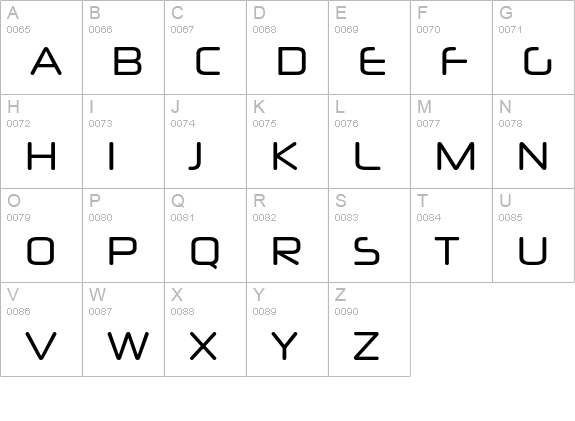
Neuropol X Cnd Font Details
Neuropol X Cnd font is a futuristic and sleek typeface that exudes a sense of modernity and innovation. With its geometric shapes and condensed letterforms, this font is perfect for conveying a high-tech and cutting-edge aesthetic in your designs. The clean lines and sharp angles of Neuropol X Cnd make it a versatile choice for a wide range of projects, from digital interfaces to branding materials. What sets Neuropol X Cnd font apart is that it is not only stylish and contemporary but also free to download. You can easily access this striking font at FontsMarket.com, where you can unleash your creativity without any cost barriers. Whether you're working on web design, posters, or logos, Neuropol X Cnd font will undoubtedly make a bold statement and elevate your projects to the next level. Embrace the future of typography with Neuropol X Cnd font and watch your designs come to life in a dynamic and captivating way.